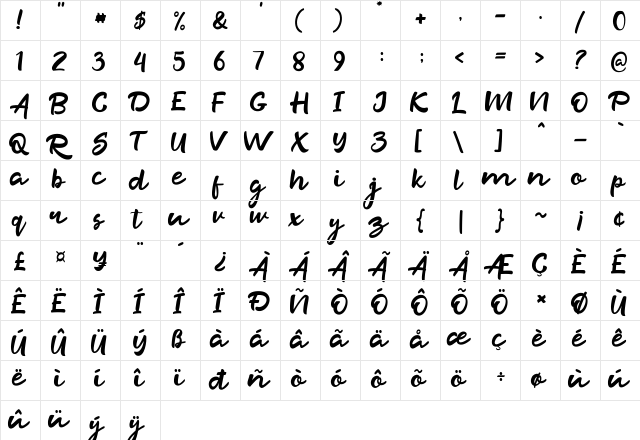
Razan Script Regular
Design Context for Razan Script Typeface
Razan Script flows with the natural rhythm of handwritten lettering, making it ideal for designs that call for warmth and personal expression.
Font Pairing: Combine Razan Script with a simple geometric sans for maximum contrast — the tension between flowing curves and clean structure is a classic typographic pairing.
Pro Tip: Use Razan Script for short runs of text — names, titles, or taglines. Extended body copy in script faces tires the eye quickly.